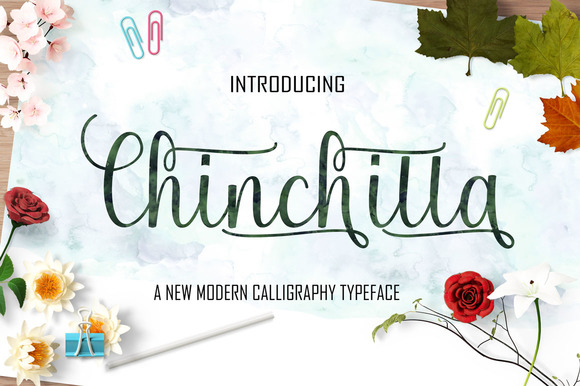
Dive into the enchanting realm of Chinchilla Font, a breathtaking script font family curated by the ingenious JoeeCreative, and let your creative spirit soar. Chinchilla Font is an exquisite fusion of elegance and playfulness, designed to captivate and enthrall with its luxurious contours and delightful curves.
Chinchilla Font is a visual masterpiece, meticulously crafted to evoke a sense of refinement and luxury. Each letter dances across the page like a graceful ballerina, exuding an aura of sophistication and charm. The font's smooth lines and delicate flourishes create an irresistibly inviting aesthetic, perfect for adding a touch of elegance to any project.
Unlock your imagination and explore the boundless possibilities that Chinchilla Font holds. Its versatility knows no bounds, allowing you to effortlessly elevate your designs to new heights. Whether you're crafting logos, invitations, branding materials, or social media posts, Chinchilla Font will add a touch of magic and sophistication that's sure to leave a lasting impression.
Transport yourself to a world of elegance and beauty with Chinchilla Font. Its flowing lines and captivating details will transform your creative projects into works of art. Embrace the allure of this magnificent font and let your designs shine with newfound grace and allure.